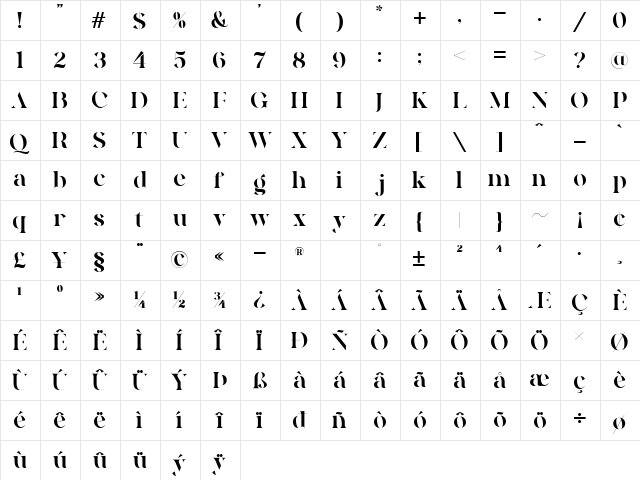
Quakiez Display
| Style | Display |
| Designer | Almarkhatype 2019 - Abdul Malik Wisnu |
Design Context for Quakiez Typeface
Quakiez is built around its visual character rather than neutral utility — its distinctive forms are designed to make an impression at display sizes.
Font Pairing: Pair with a clean neutral sans-serif for body copy to let Quakiez's character lead without overwhelming the composition.
Pro Tip: Use Quakiez exclusively at display sizes — it was designed to be seen, not read at length. Let a neutral companion handle body copy.